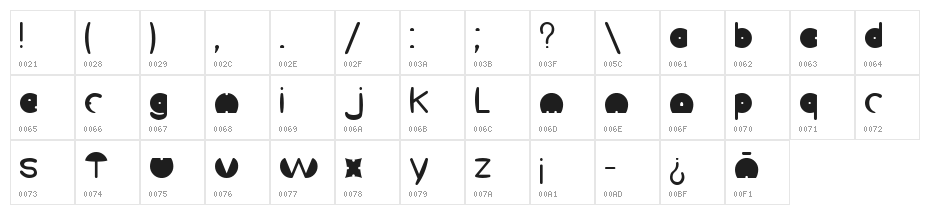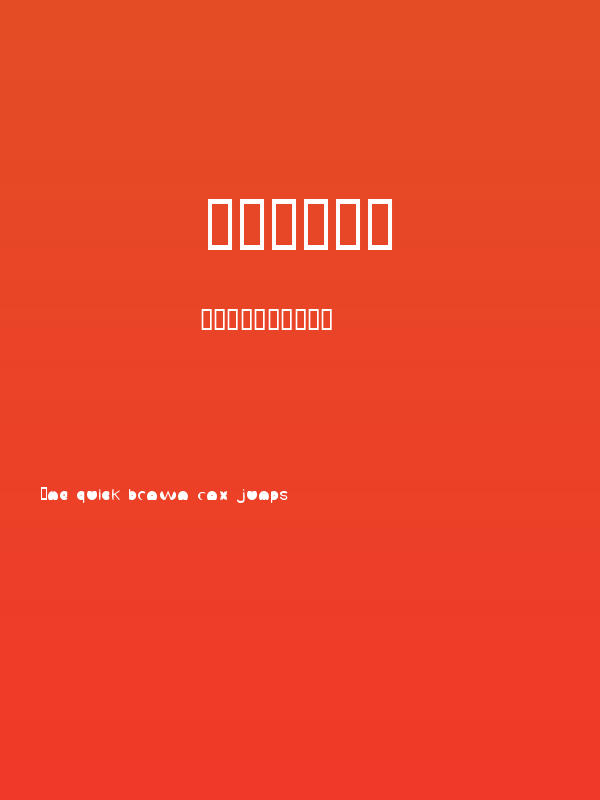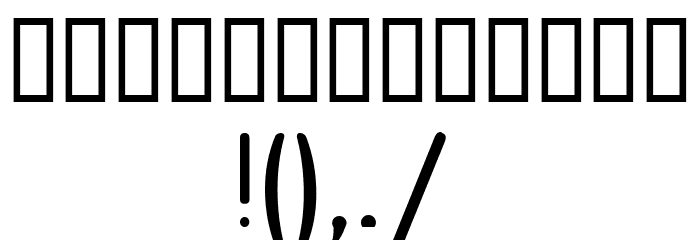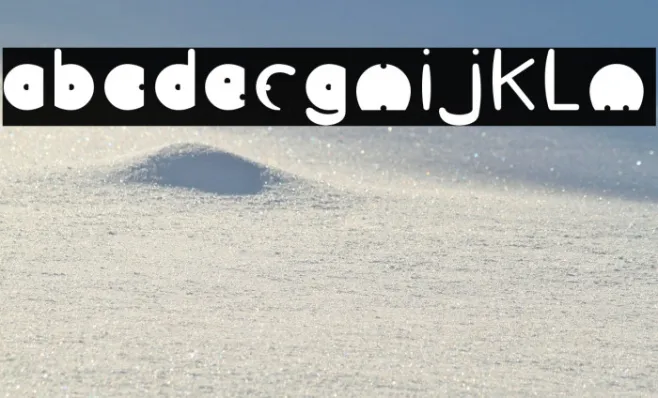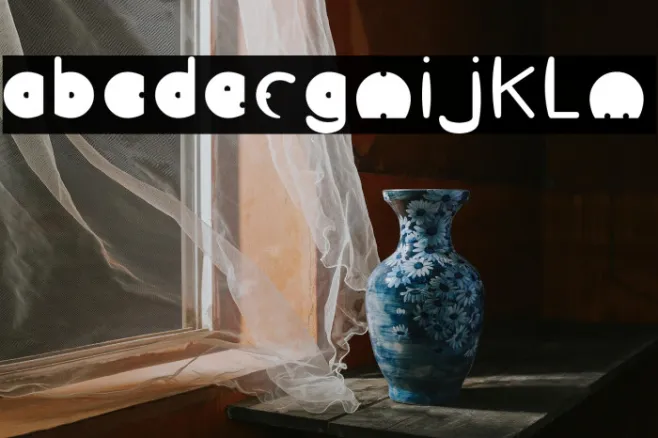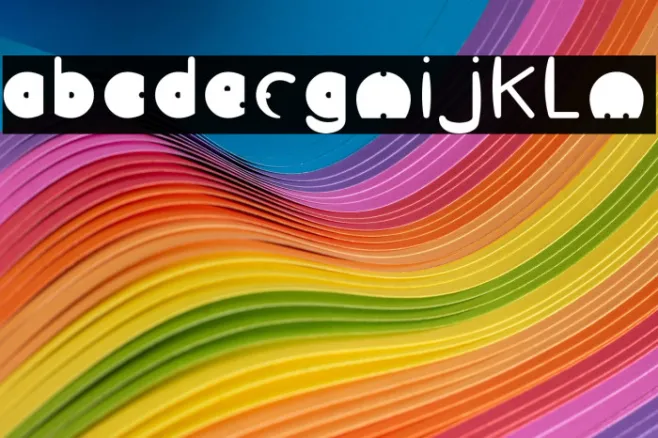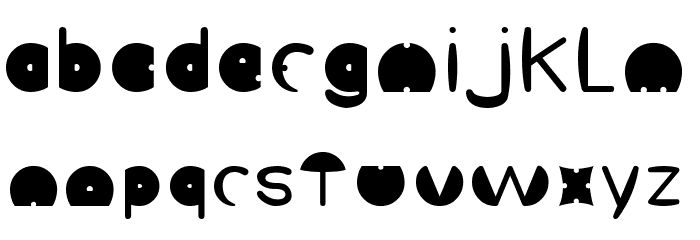
Filler Font
Filler Description
This font features a playful and unique design with a modern twist. The characters are bold and rounded, with a distinct cut-out style that adds a whimsical touch. The lowercase letters have a consistent circular motif, while the uppercase letters maintain a strong presence with their solid forms. The numbers and special characters follow the same playful theme, making this font ideal for creative projects. Its boldness and distinctive style make it stand out, perfect for eye-catching designs.
| Overall Style | Modern, Playful |
| Proposed Projects | Ideal for children's books, playful branding, creative posters, and eye-catching headlines. |